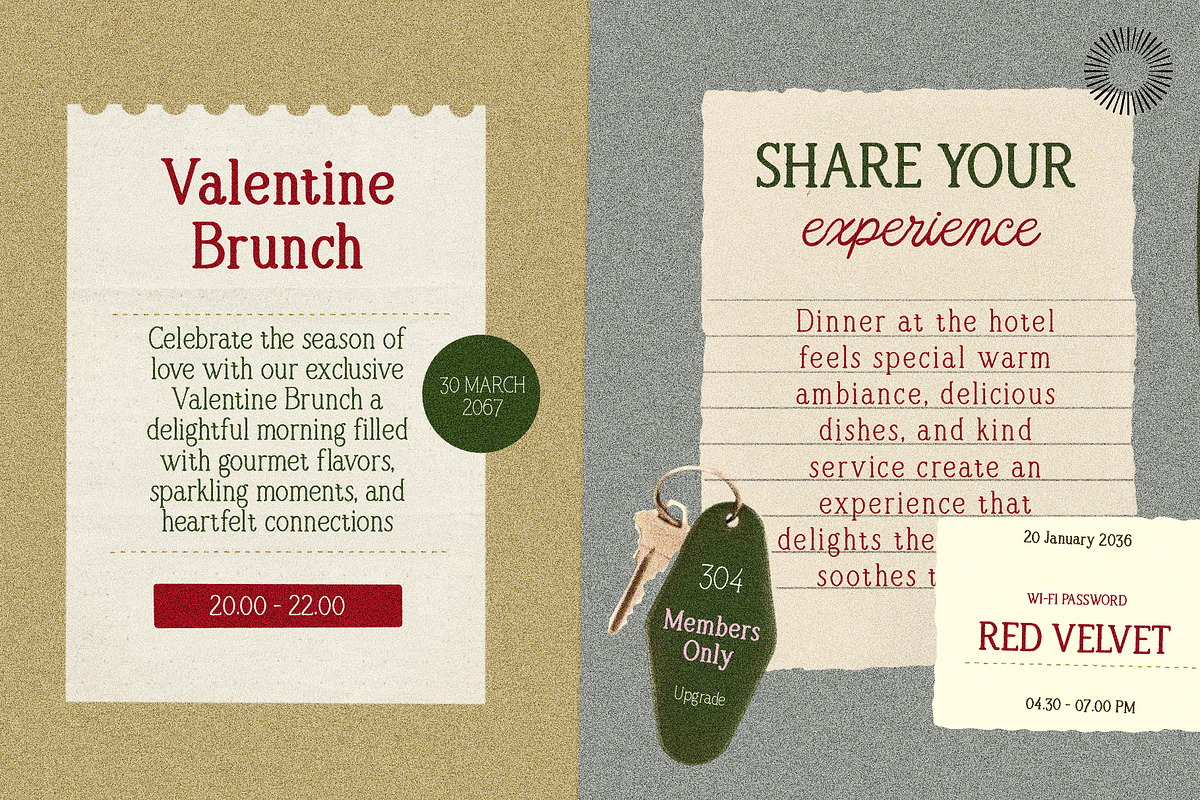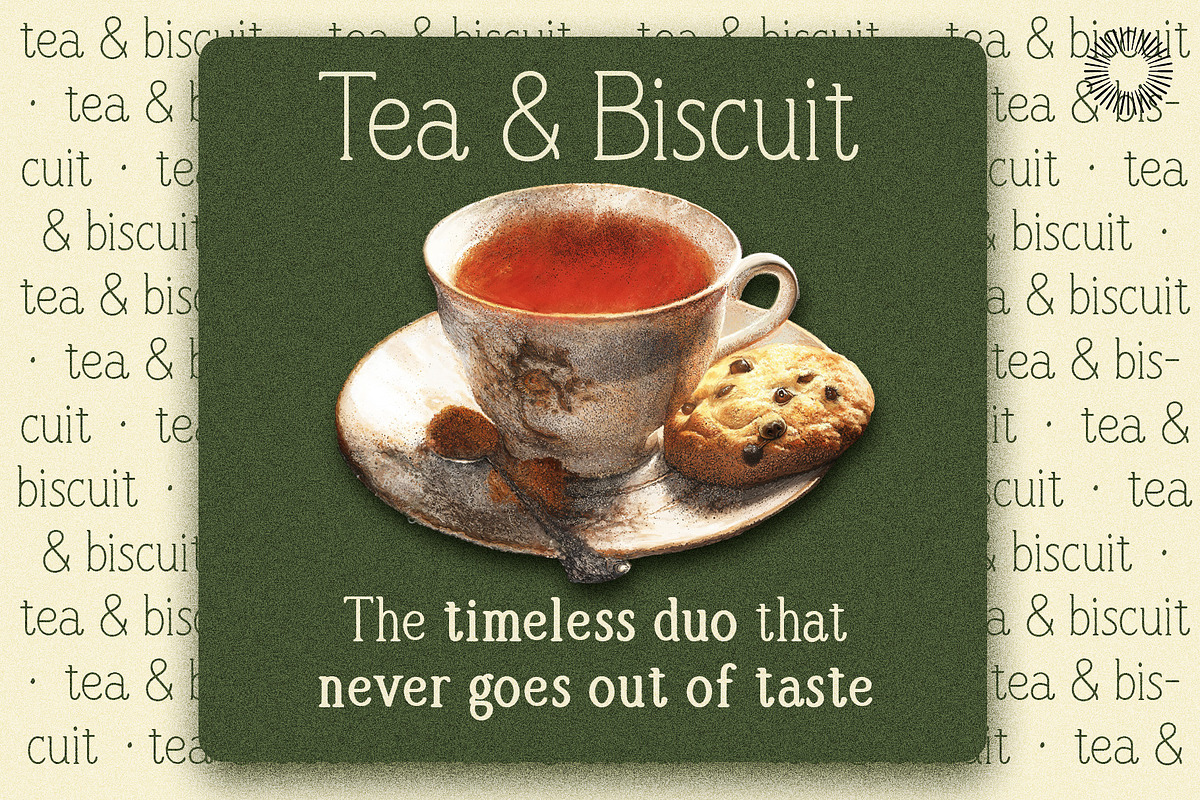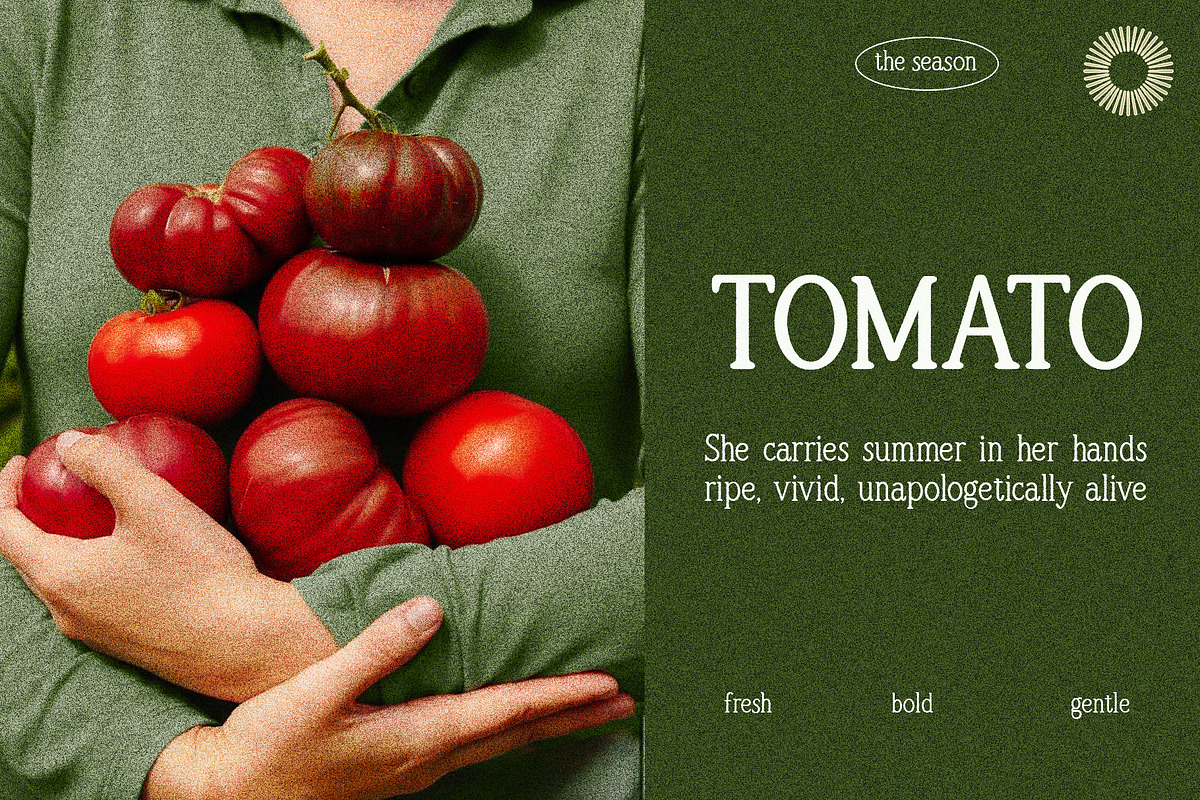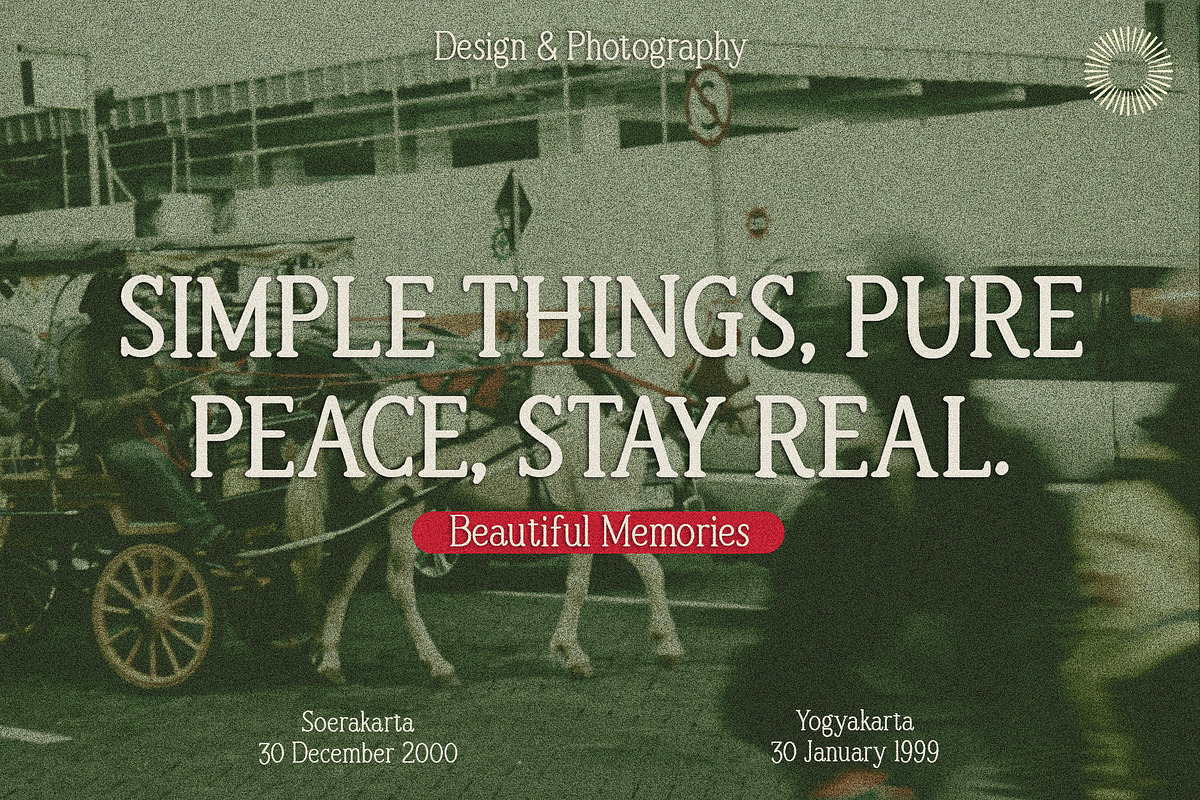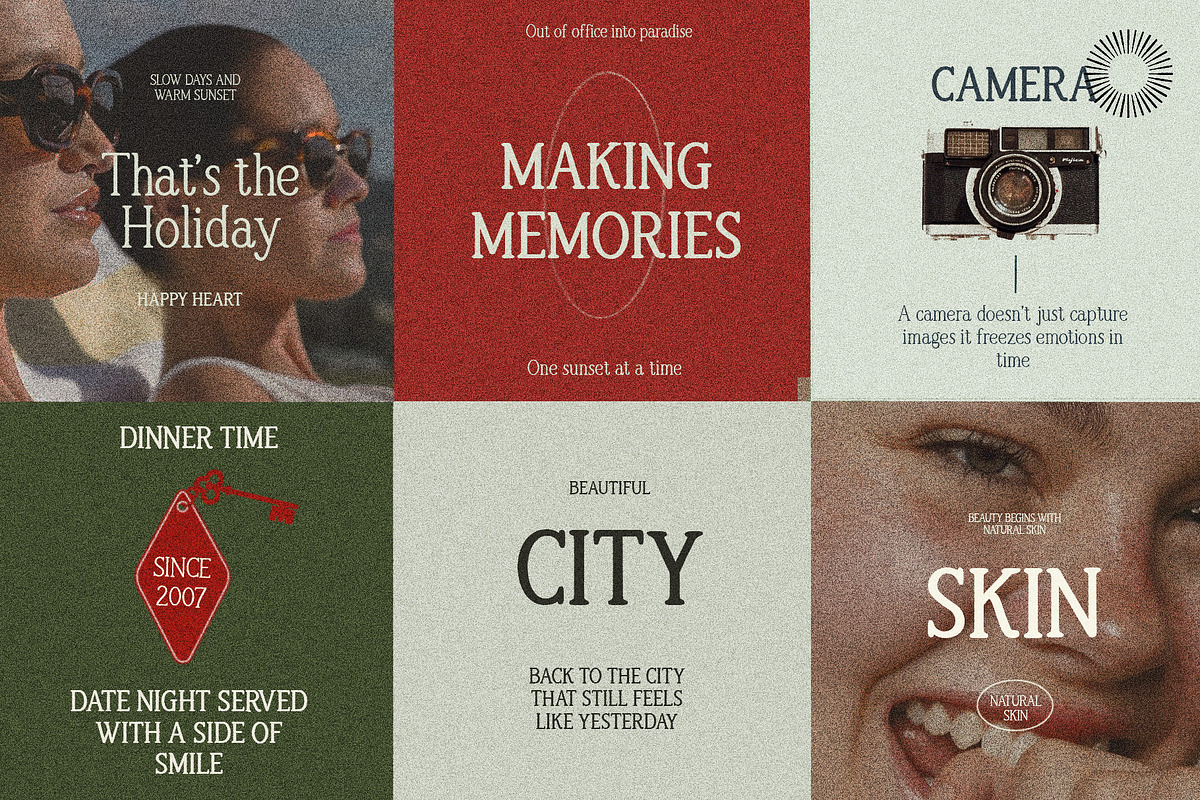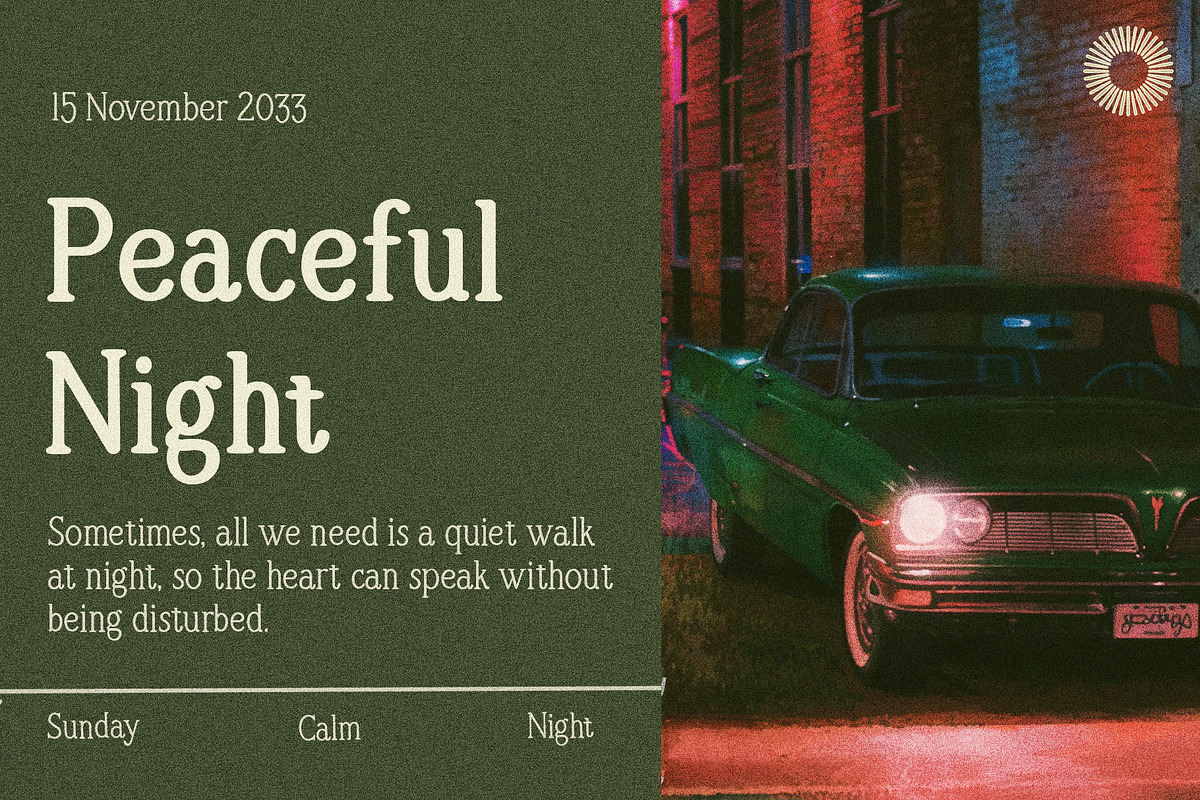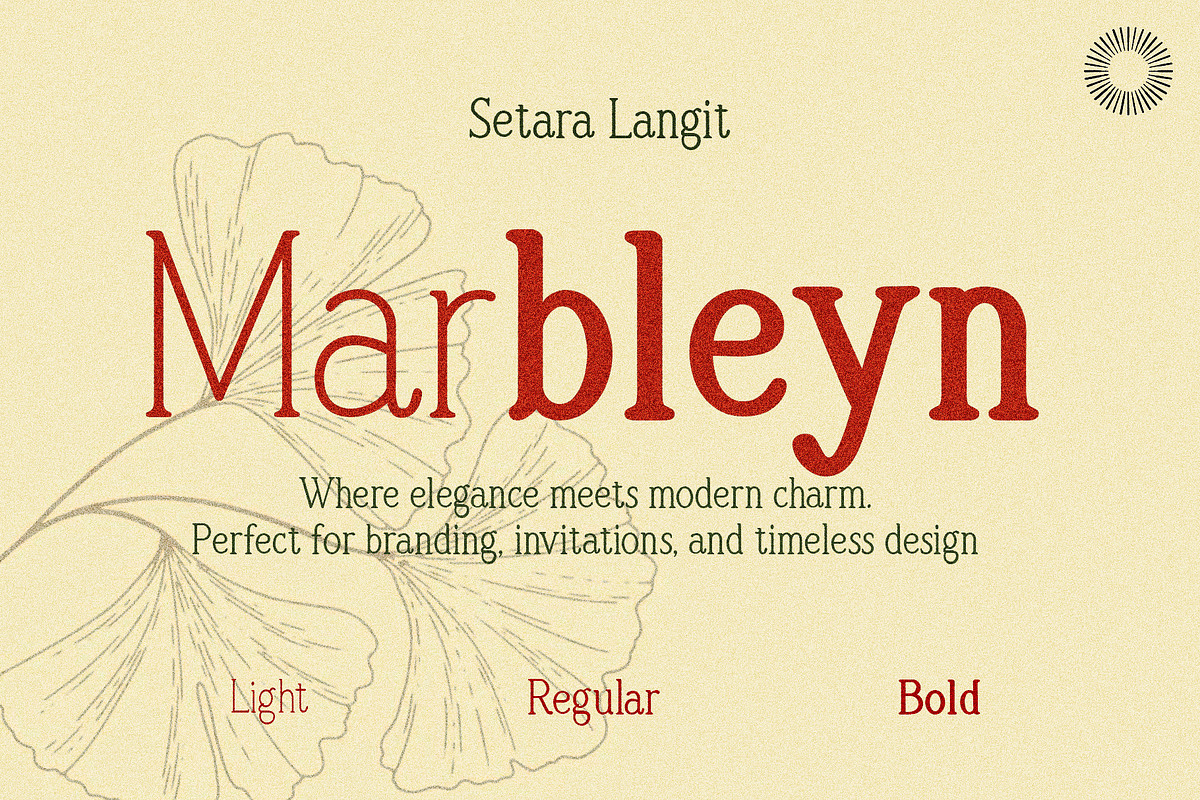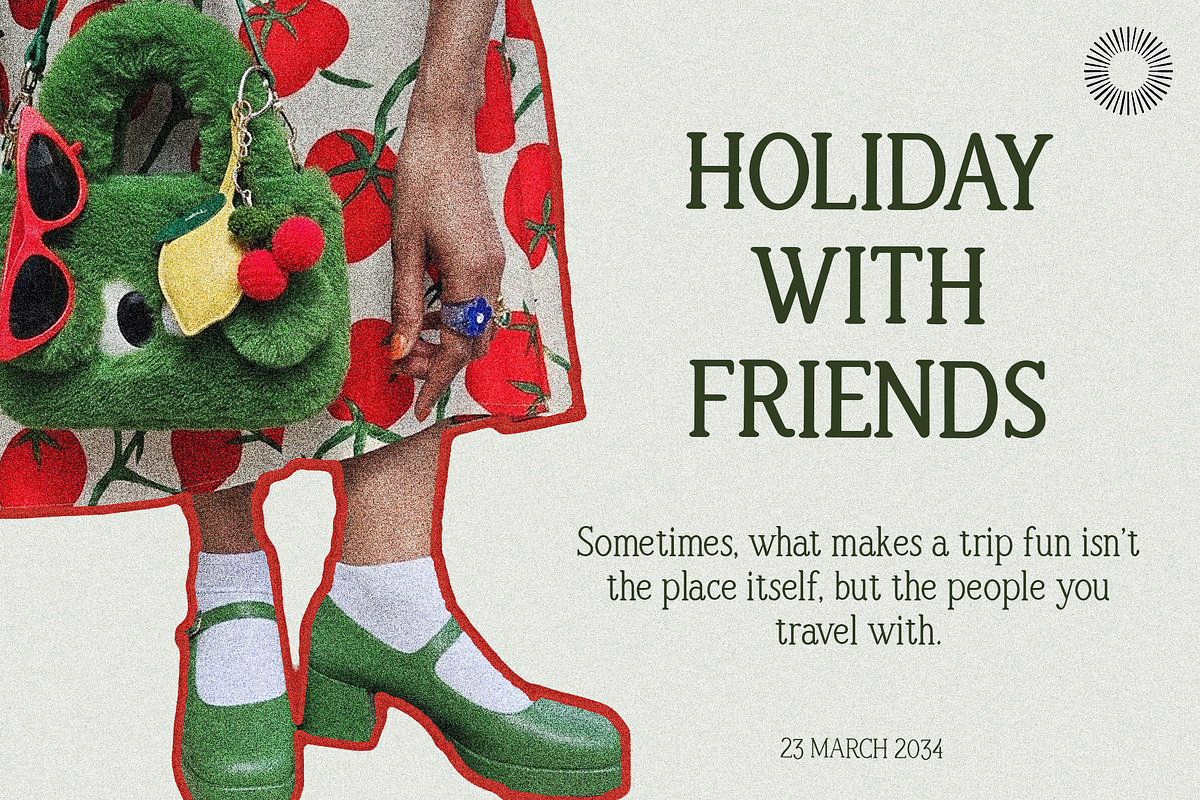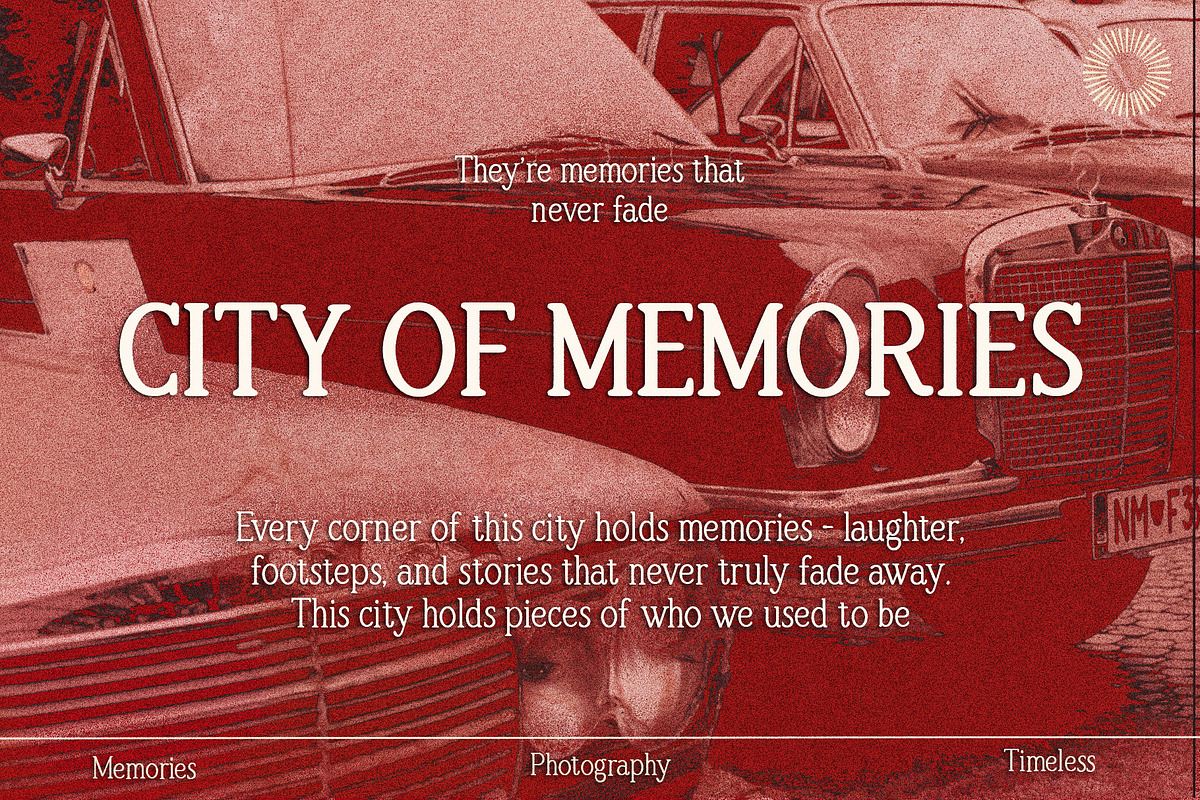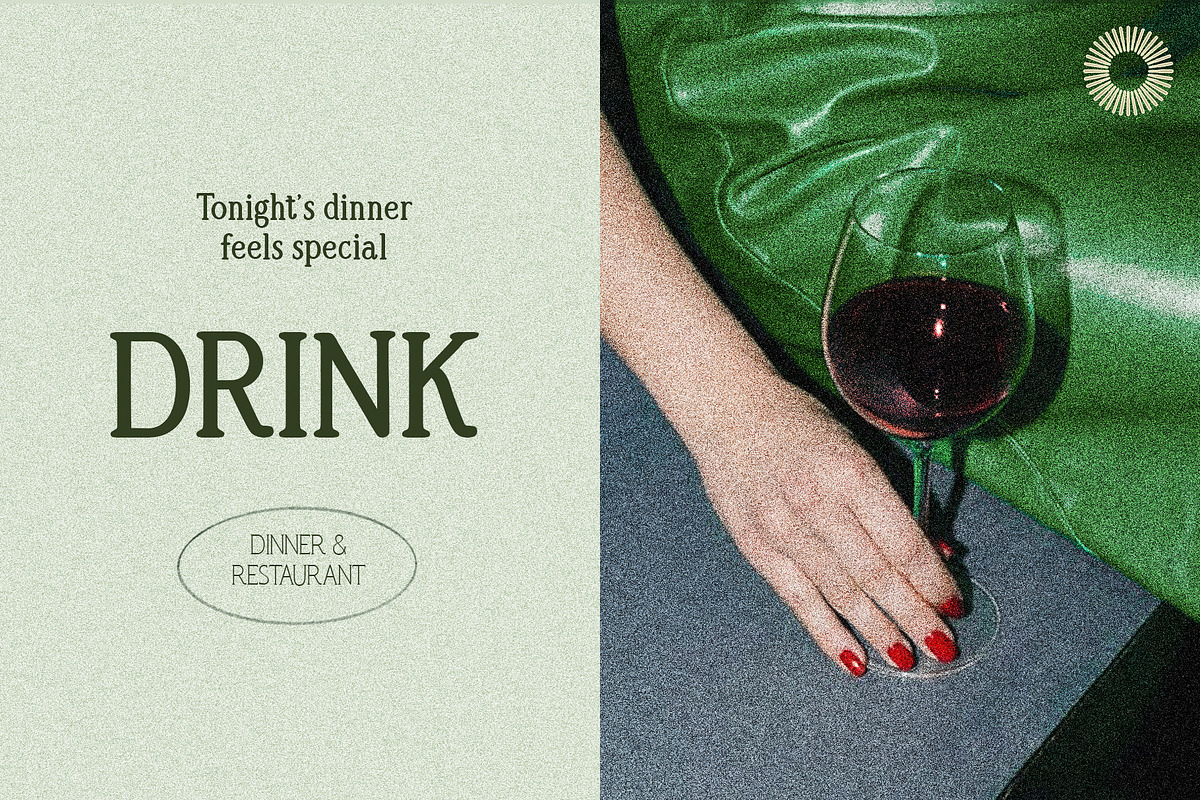
Marbleyn - Handmade Serif
Marbleyn is a handwritten serif font that gracefully bridges classic elegance with personal warmth. Its letters flow with the natural rhythm of handwriting, yet retain the poised structure of traditional serifs. Each curve and stroke feels intentionally crafted, imperfect in the most beautiful way, evoking the charm of ink on textured paper. With its subtle organic movement and vintage undertone, Marbleyn brings soul to modern design. It carries the softness of a handwritten note and the sophistication of a timeless typeface, making it perfect for branding, invitations, editorial titles, and heartfelt design compositions. Marbleyn doesn’t just spell words, it tells them, with a quiet confidence and a touch of nostalgic grace.